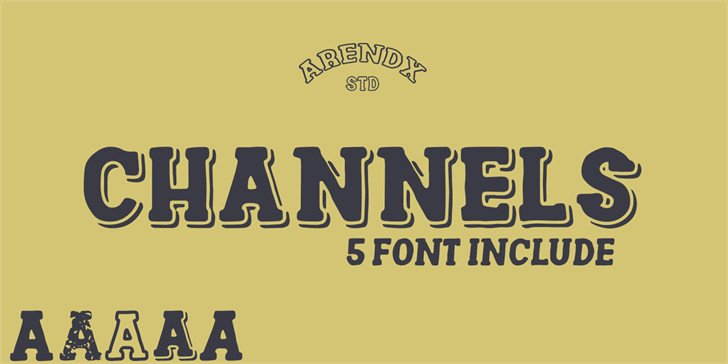
Channels Serif Font
Channels is a semi-modern font family that is wrapped into a retro style that is very creative and strong and will be very suitable for the various types of design projects you place it in.